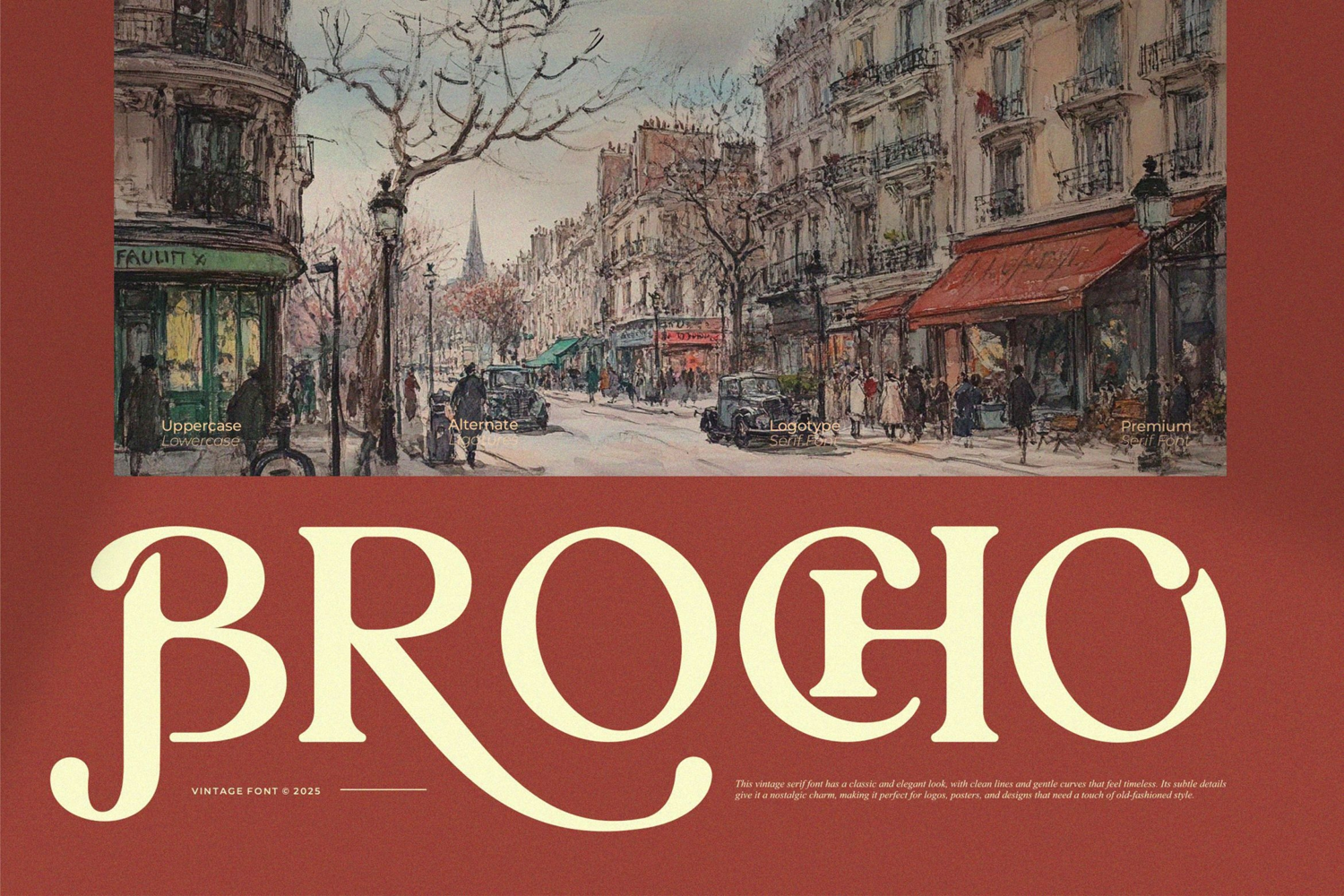
Brocho || Vintage Retro Serif Font
Brocho
Brocho Serif is a retro vintage font type for all branding and logo designs. This retro vintage Serif font has a beautiful character. This font is suitable for invitation card designs, cool logos, movie titles, movie names, business cards, book titles, brand names, and various other designs. Brocho Serif is a smooth serif font that exudes sophistication and the moment. Its stylish ligatures make this font a perfect partner for any project.
- Ligature
- Uppercase and lowercase
- Numbering and Punctuation